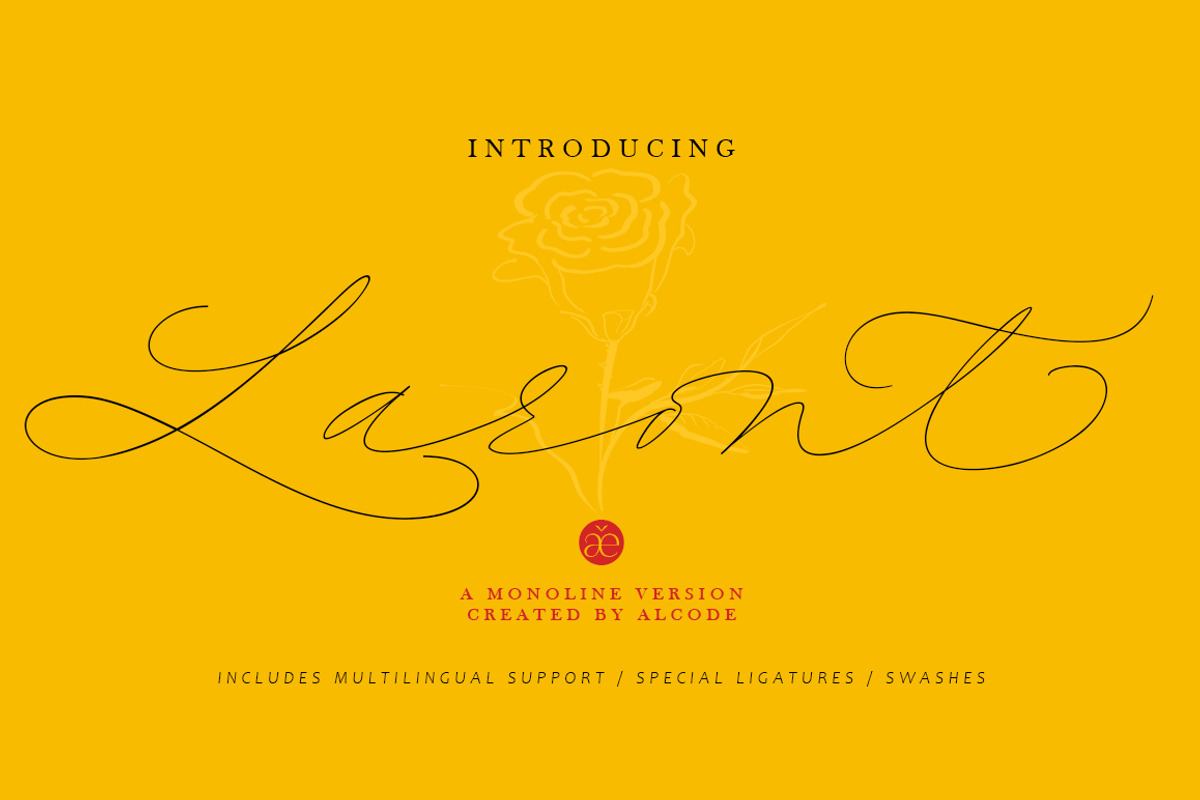
Laront Monoline Font Free Download is a sleek and modern typeface designed to bring a minimalist, clean aesthetic to your designs. With its smooth, consistent line thickness, this monoline font is perfect for creating elegant logos, branding materials, posters, and website designs. Its simple yet striking appearance gives your projects a contemporary and professional feel. Whether you’re working on a tech startup, a luxury brand, or a creative campaign, Laront Monoline Font Free Download allows you to experiment with its refined style in personal projects before purchasing a commercial license. Elevate your designs with this versatile font that combines simplicity and sophistication in every letter.